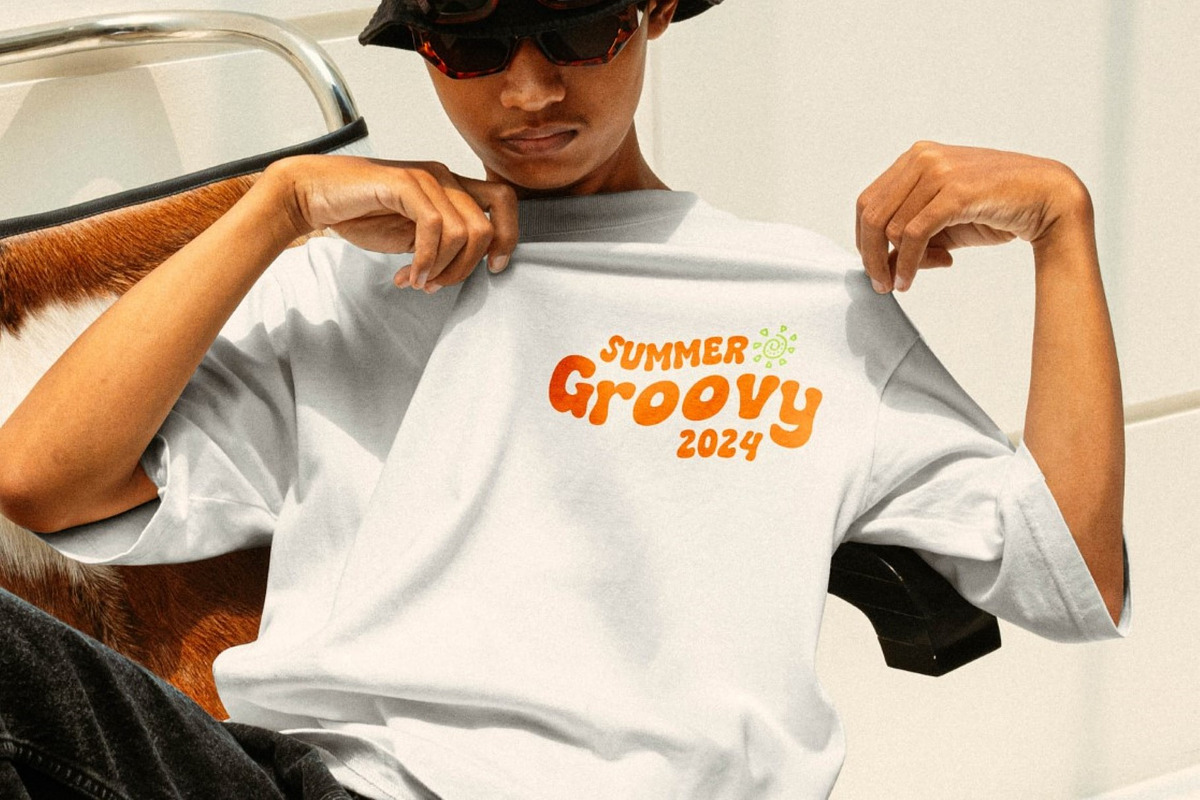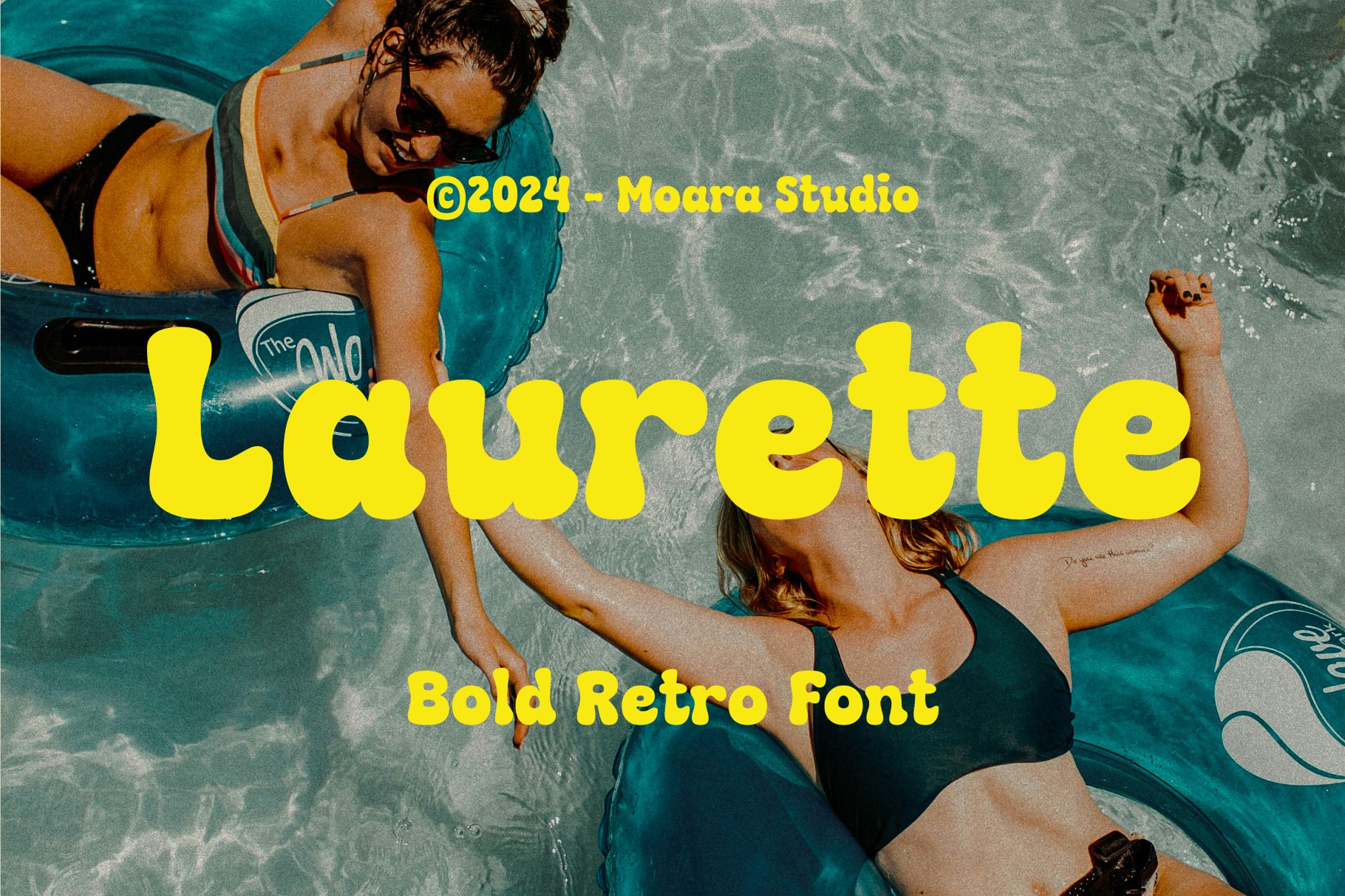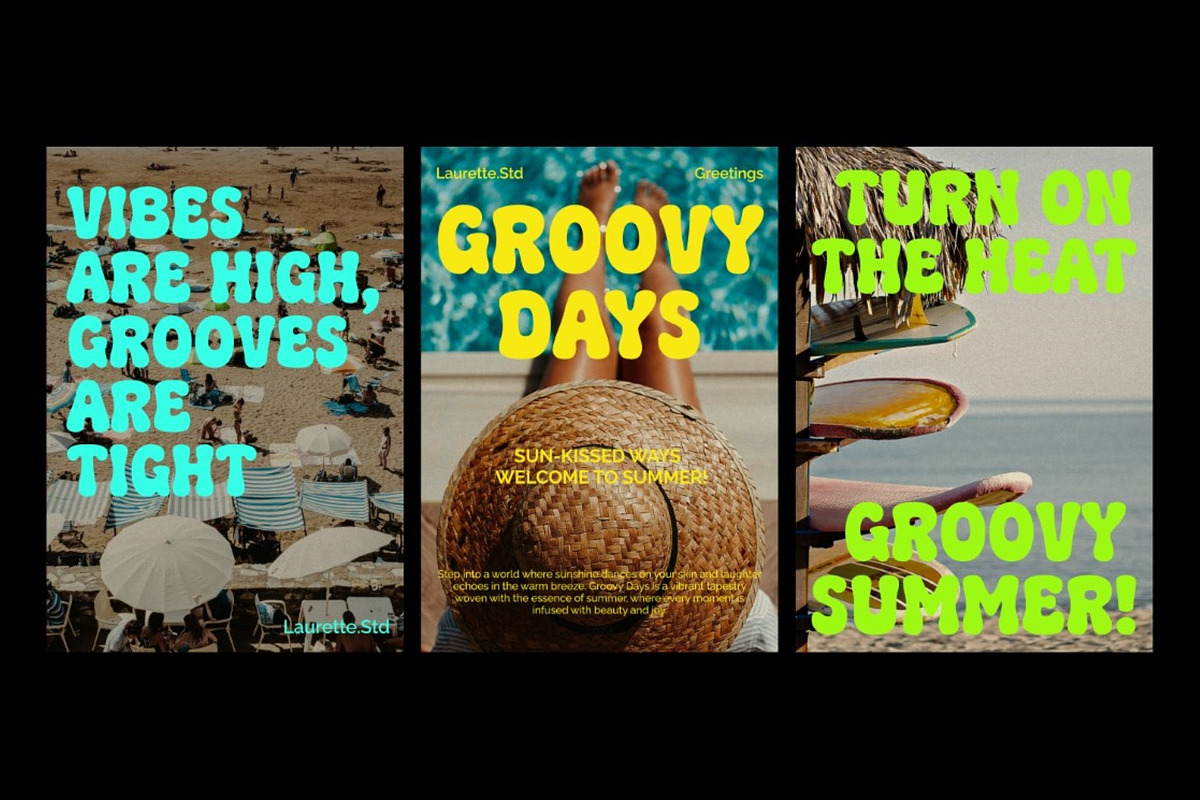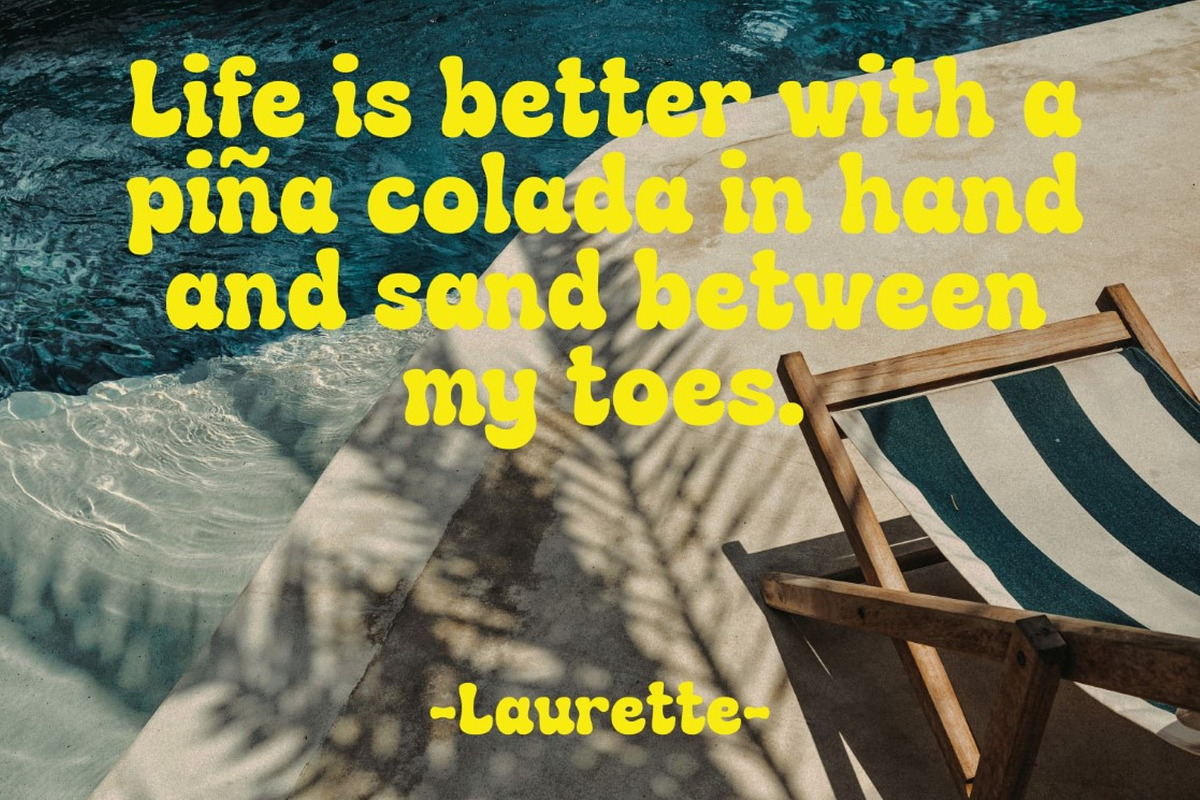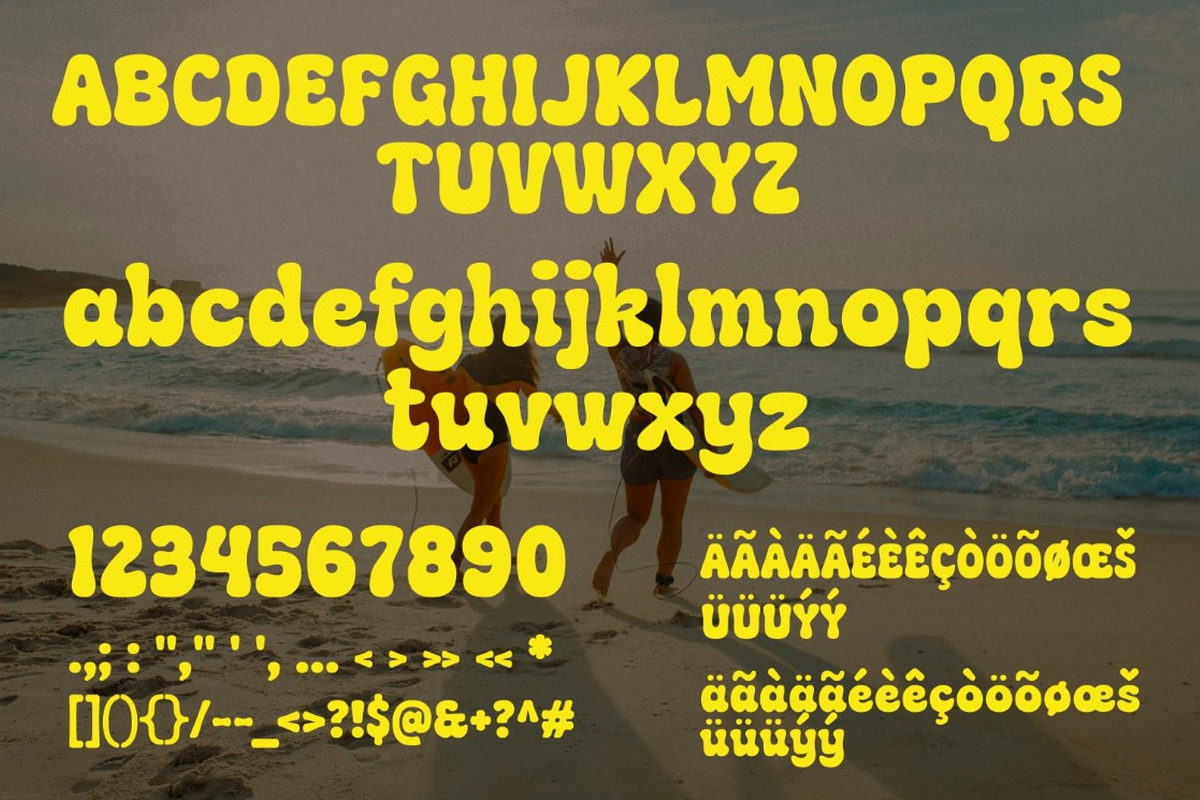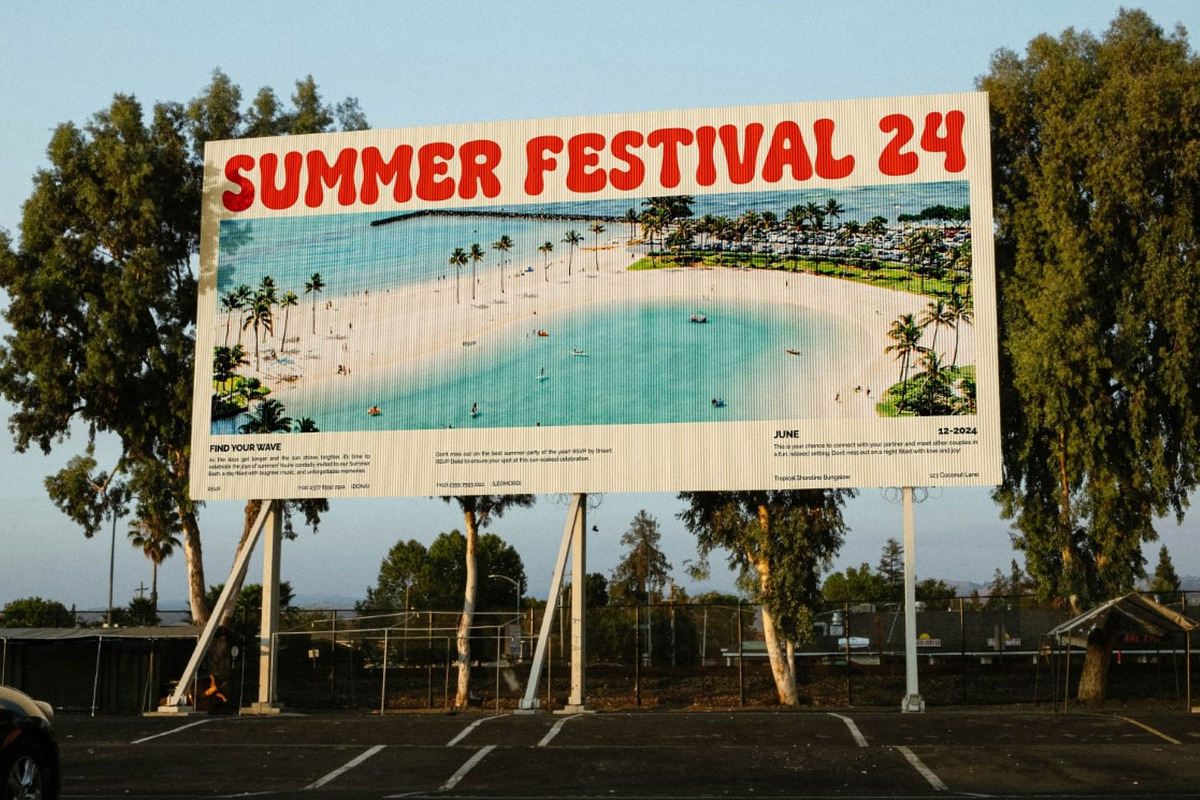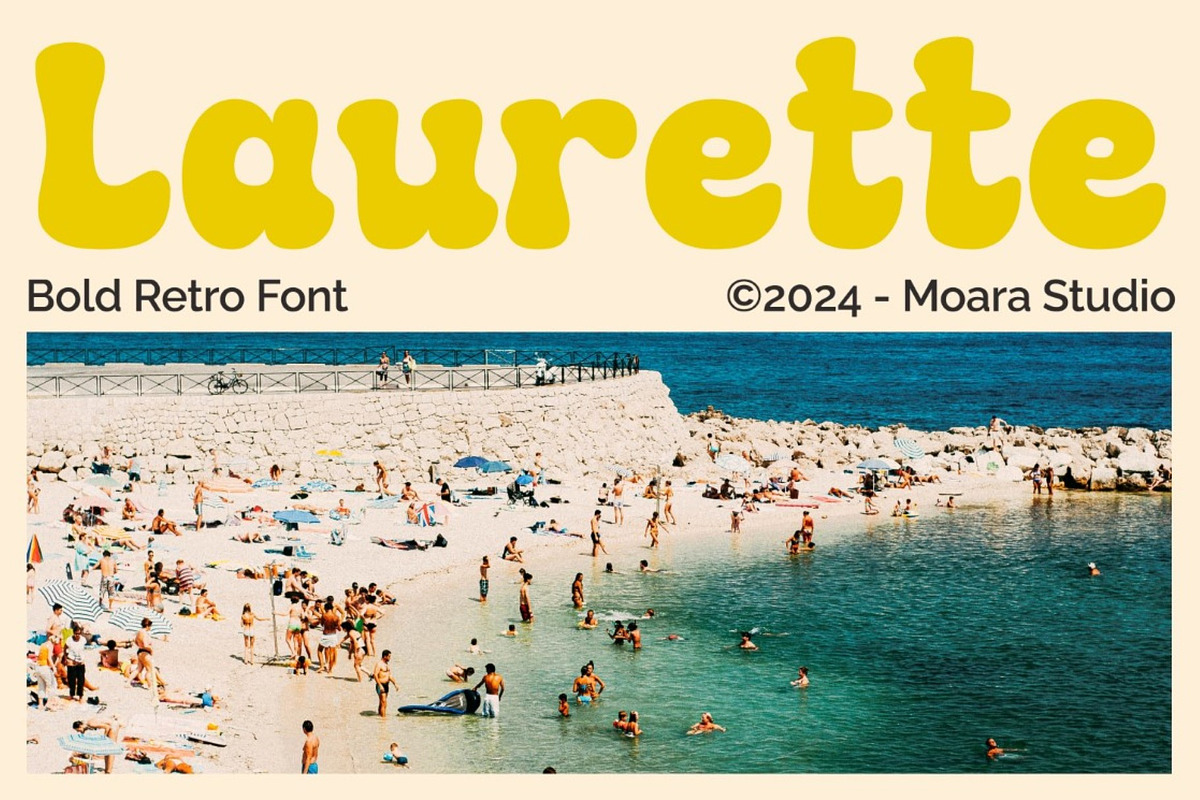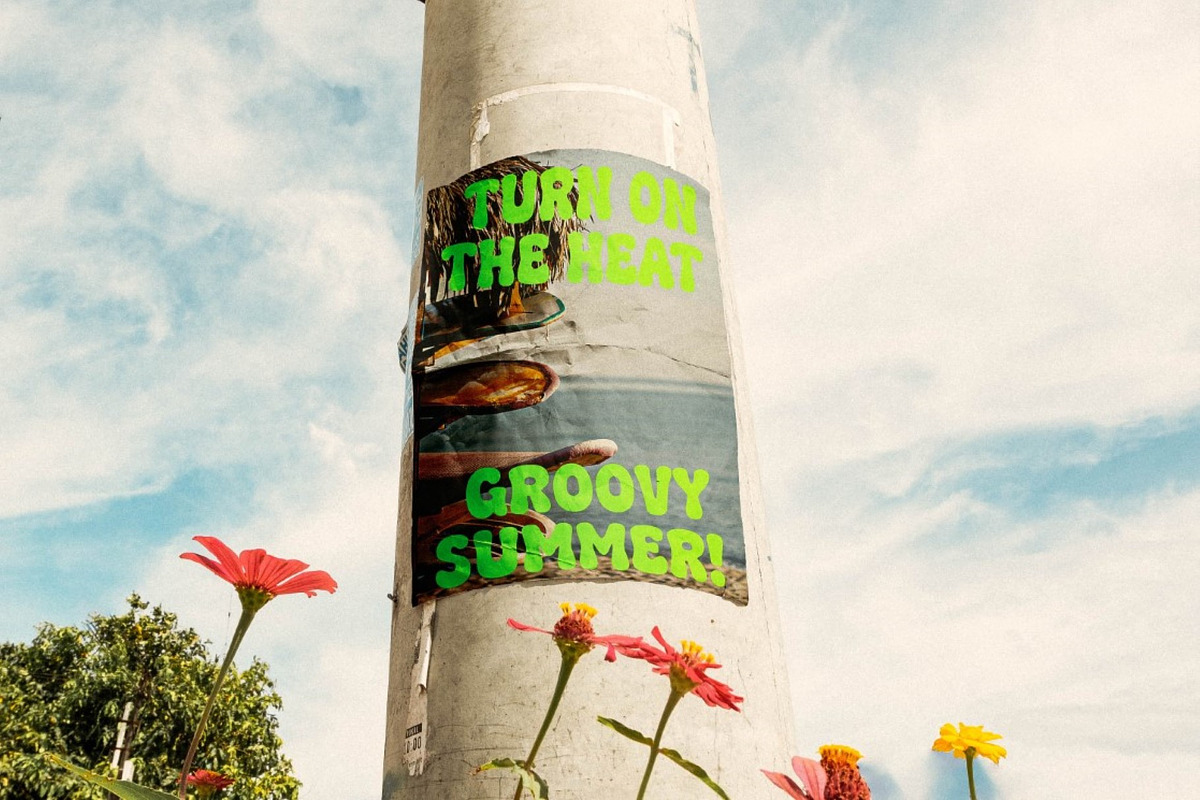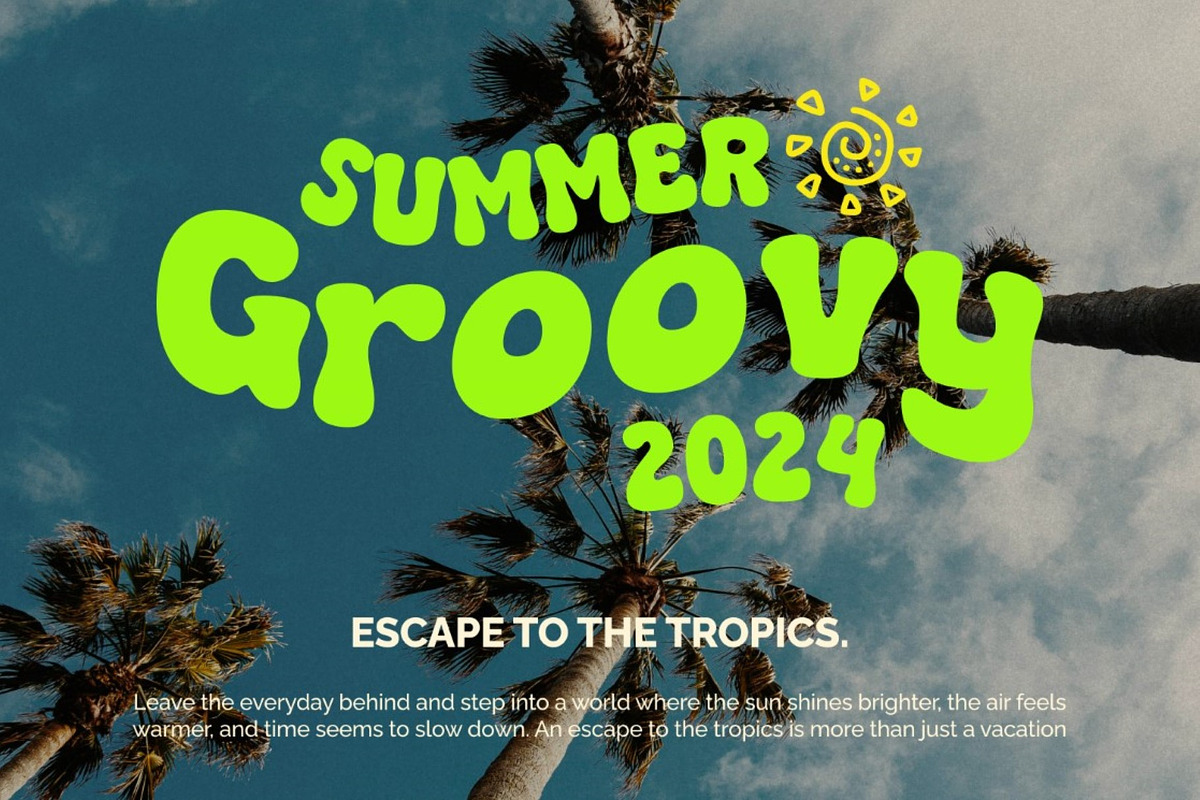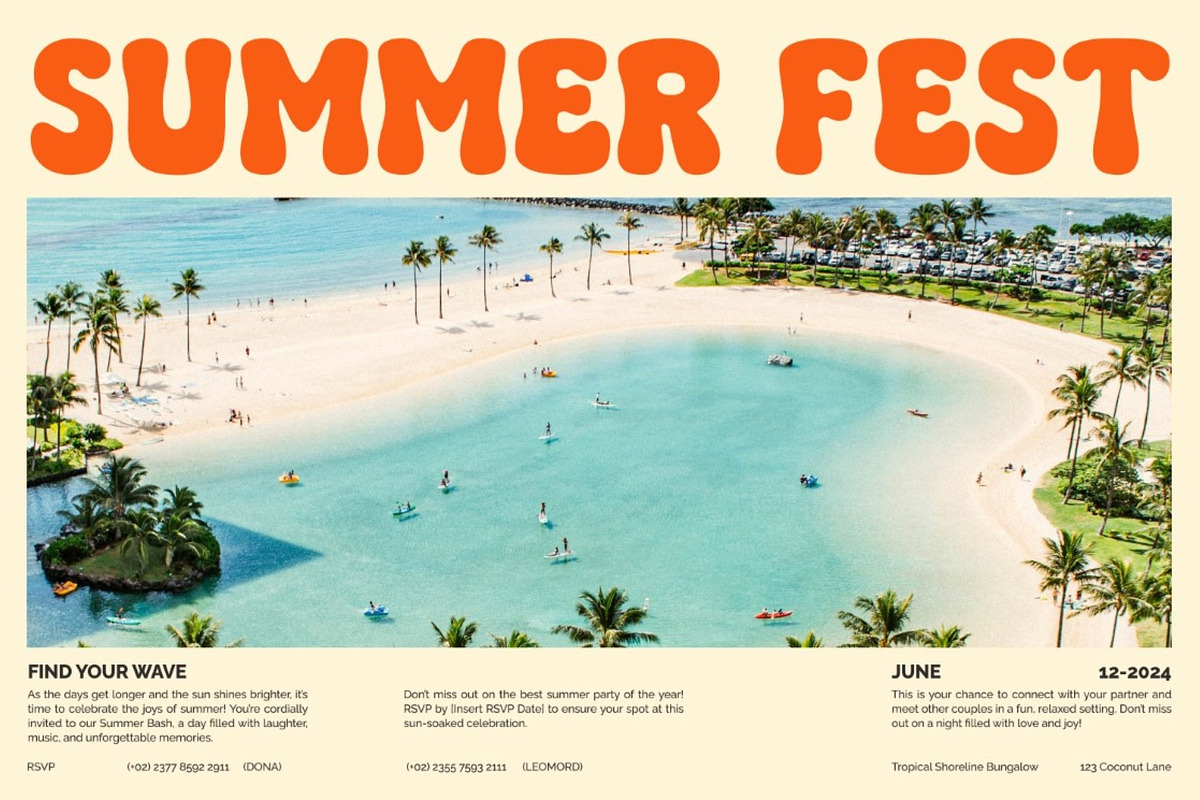
Laurette - Retro Display Font
Laurette is a vibrant and playful retro display font designed to bring a fun, nostalgic feel to your projects. Inspired by bold vintage aesthetics, this font is perfect for summer-themed designs, playful posters, branding, or any project needing a lively and colorful touch. With its chunky, eye-catching letters and cheerful personality, Laurette is sure to grab attention and add a unique flair to your work. Ideal for logos, packaging, invitations, and more, it's a font full of retro charm!